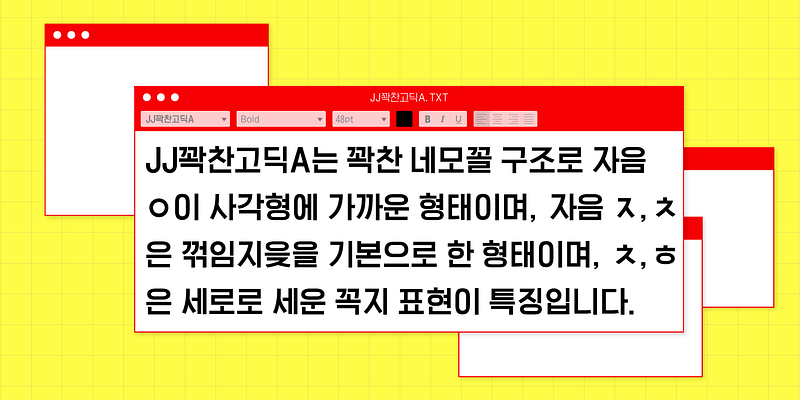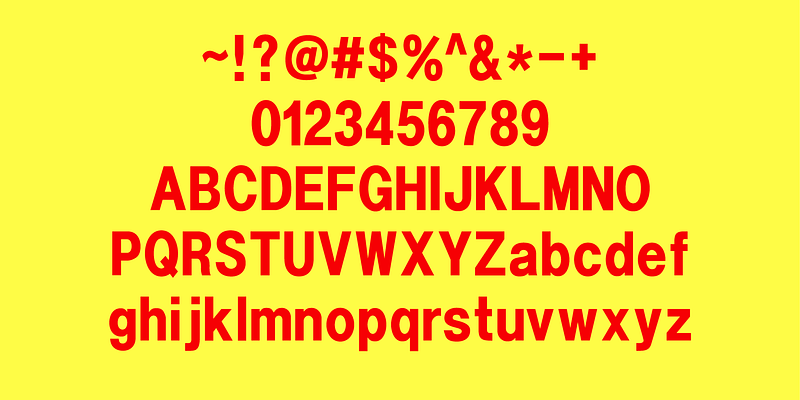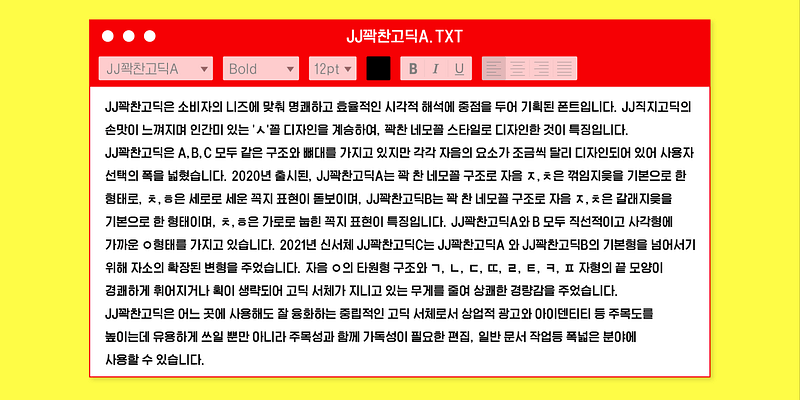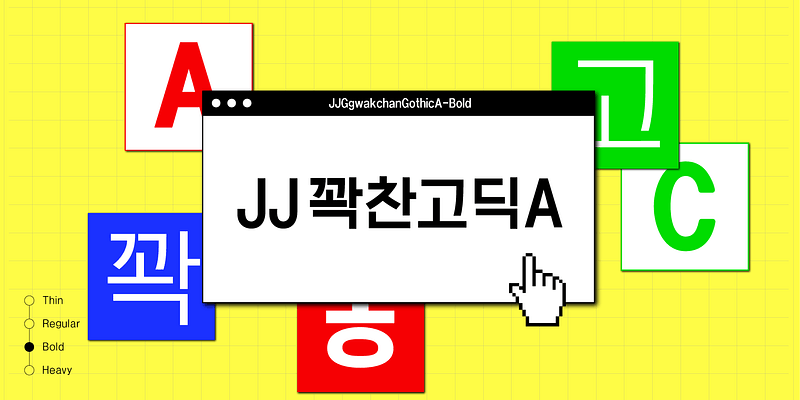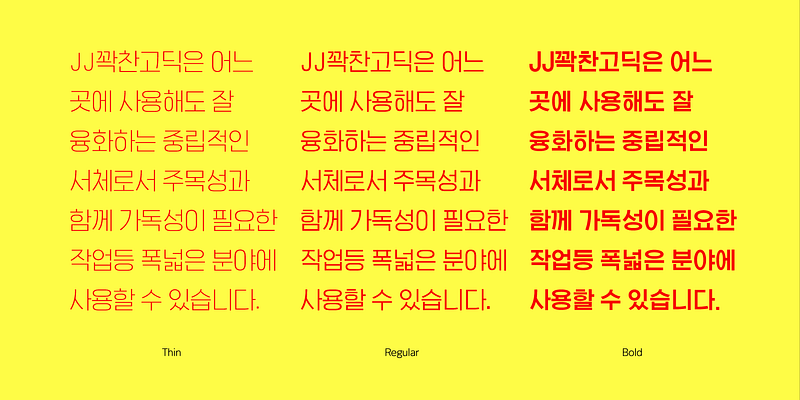
JJGgwakchanGothicseries is a typeface designed with an emphasis on clear and efficient visual interpretation to meet the consumers’ needs. Following 2020 and 2021, JGgwakchanGothicA, B, C series and a rounded version have been added, forming a total of 20 large families.
JJGgwakchanGothicfamily, as its name suggests, is attracting attention by filling the design of the grapheme in the full square structure. As a neutral sanserif typeface that can be used anywhere, it can be useful in various fields and media such as commercial advertisements and identities. Not only that, it has good readability, so it can be used in a wide range of fields such as editing and general document work.